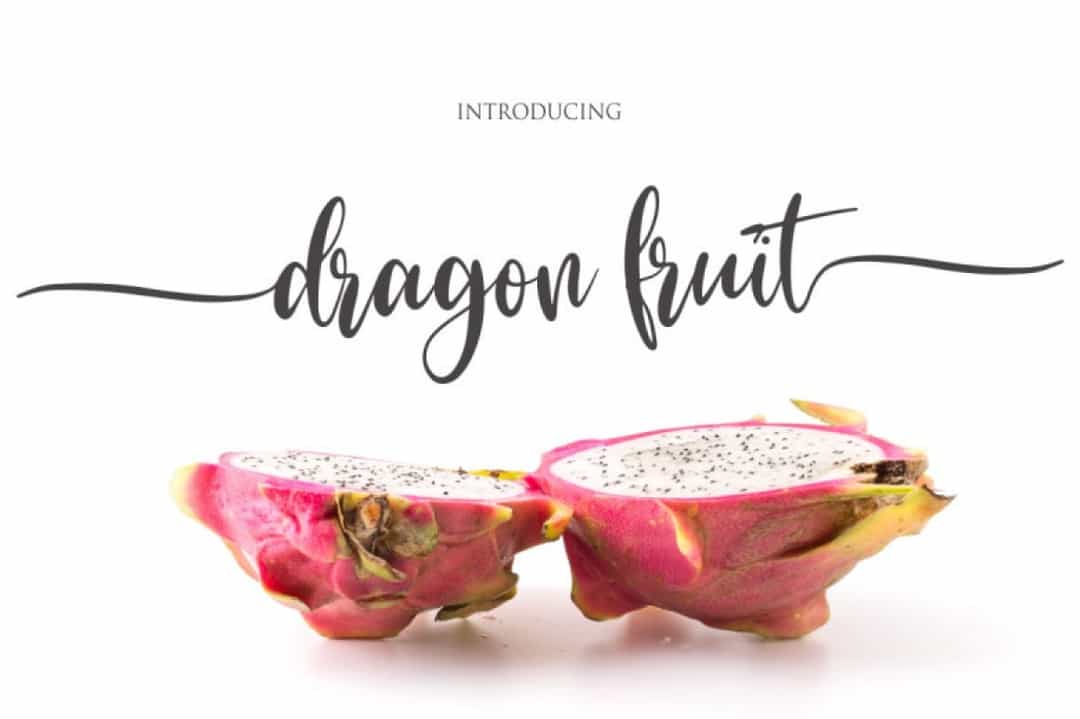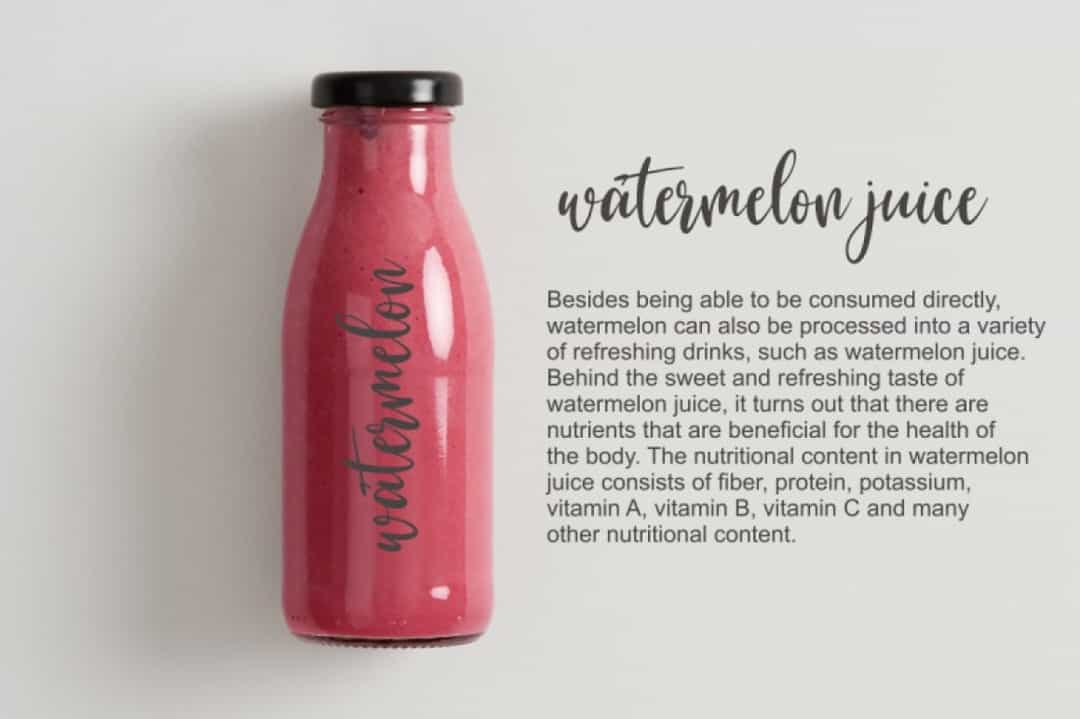
Discover Dragon Fruit Font, part of the Calligraphy Handwritten collection—a versatile and unique font perfect for adding a personal touch to your projects. Download it for free and enjoy crafting designs with style, from invitations to social media posts. This font is available exclusively for personal use, giving you the freedom to create without limits. Unlock your creativity with Dragon Fruit Font today!
Dragon Fruit Font is an eye-catching handwritten script font that features beginning and ending swash characters to elevate any project to new heights! As this font has an open PUA code, all its glyphs are free for use and all swashes contain multiple swashes!